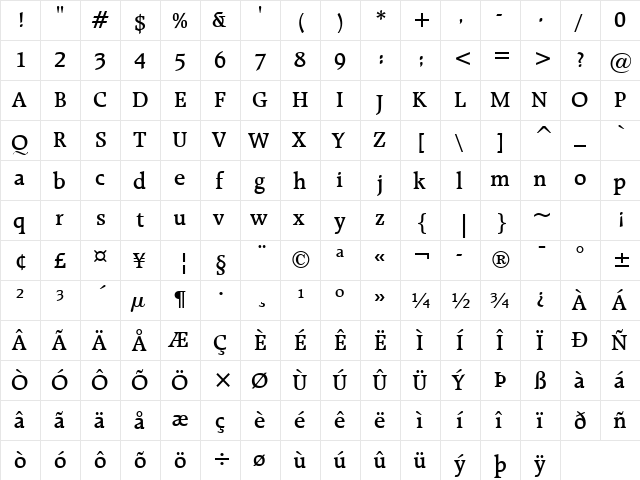
Raleigh Demi Bold Font Preview
Raleigh Demi Bold
Raleigh Demi Bold Font Details
| Style | Demi Bold |
Design Context for Raleigh Typeface
Raleigh is a composed and adaptable typeface that performs quietly and consistently across a wide range of design contexts. The heavy weight commands attention and anchors typographic hierarchies.